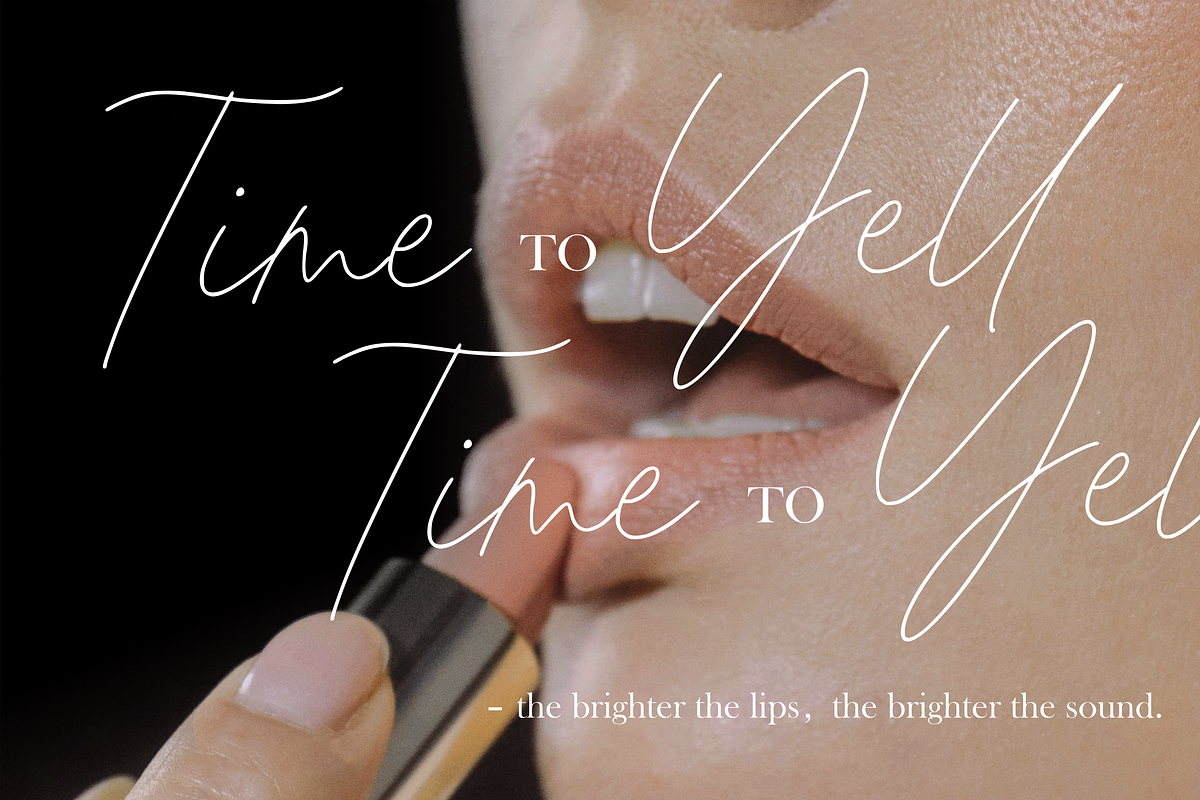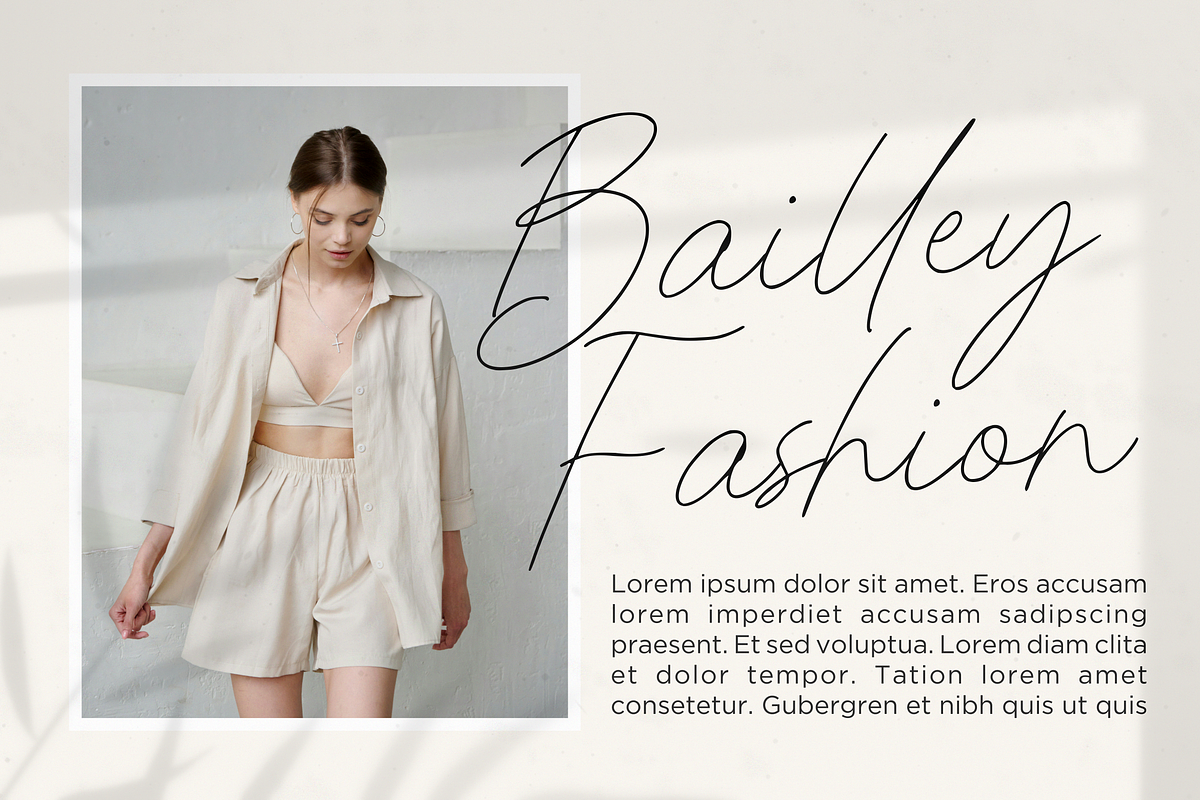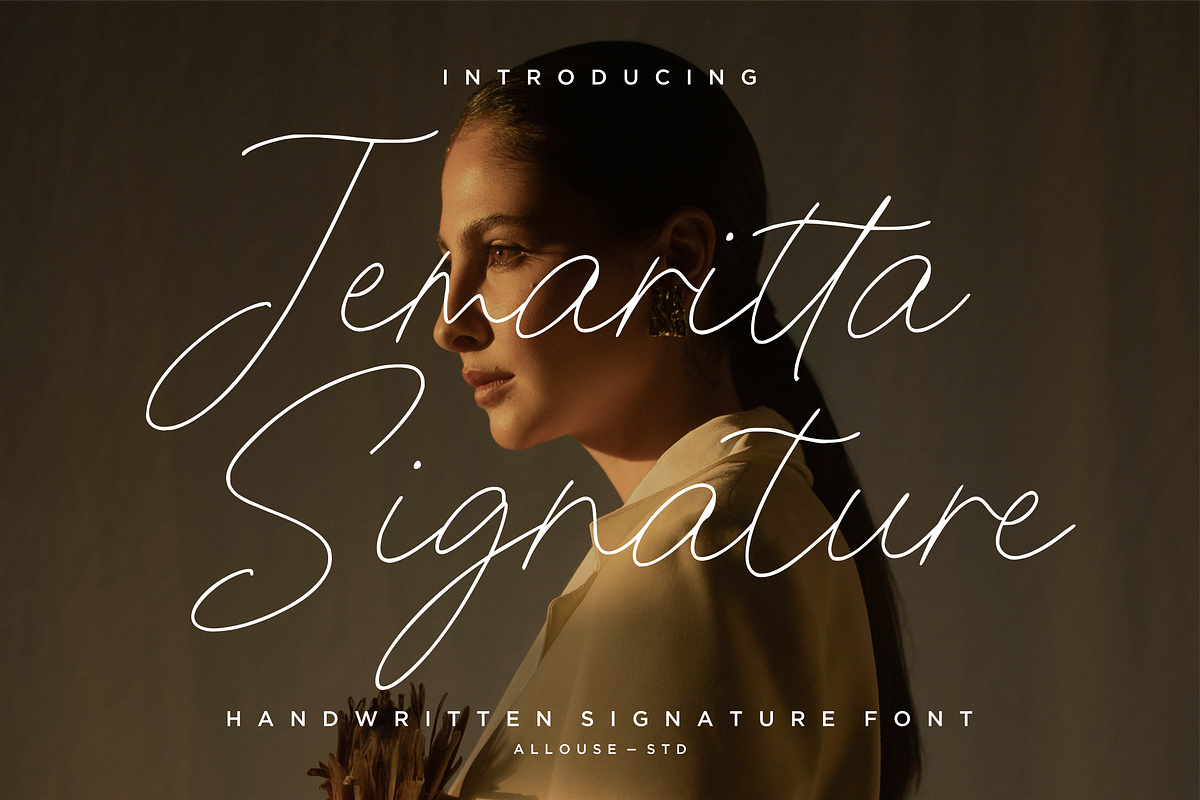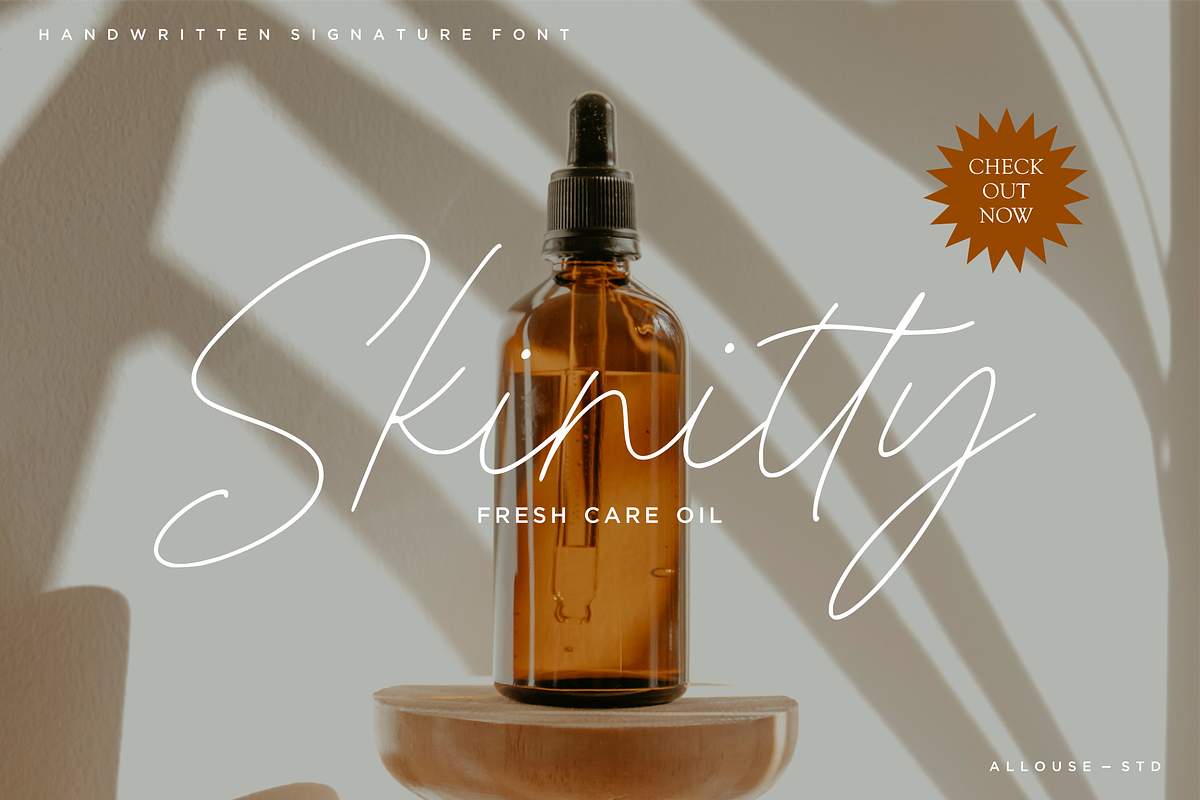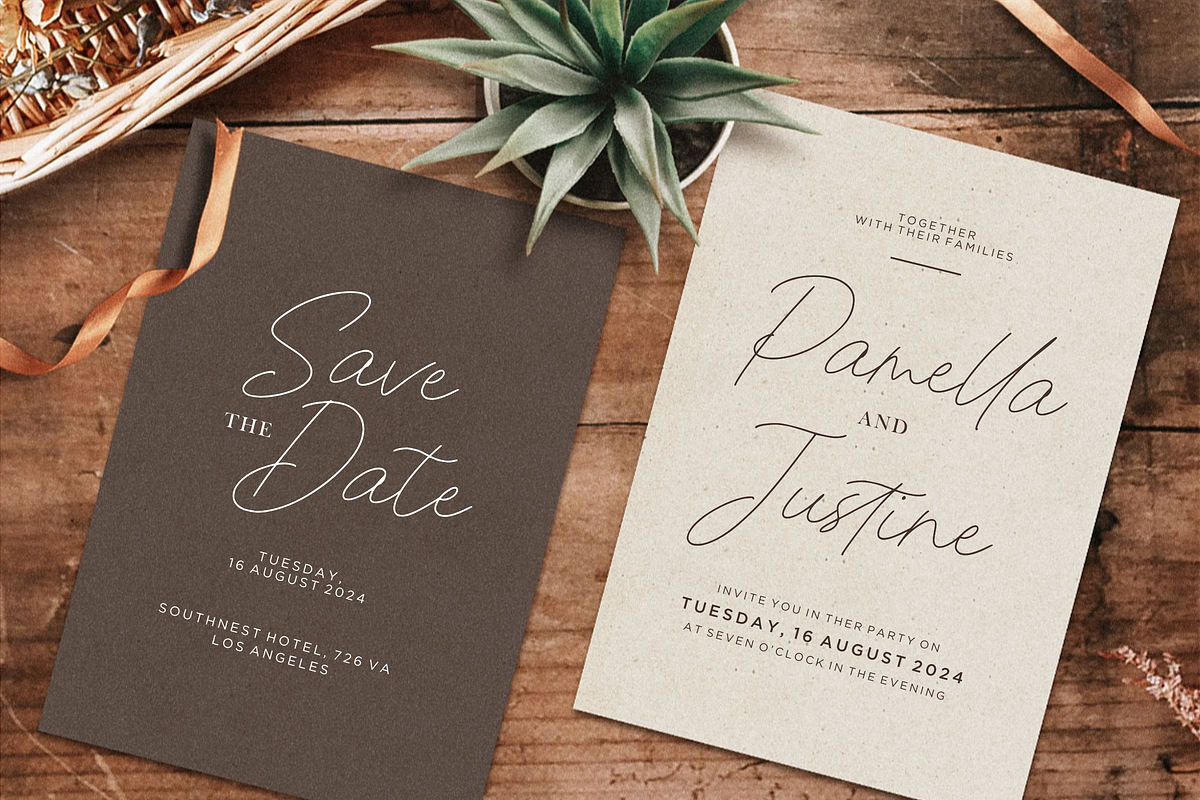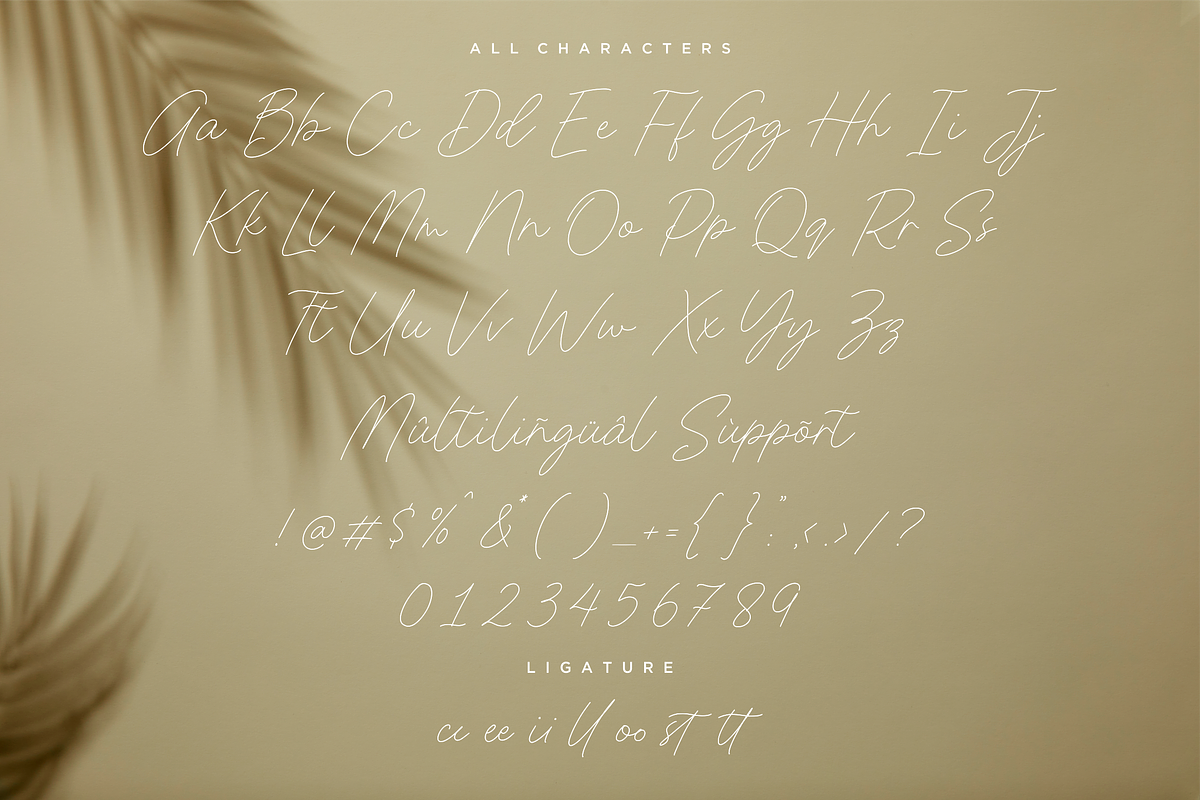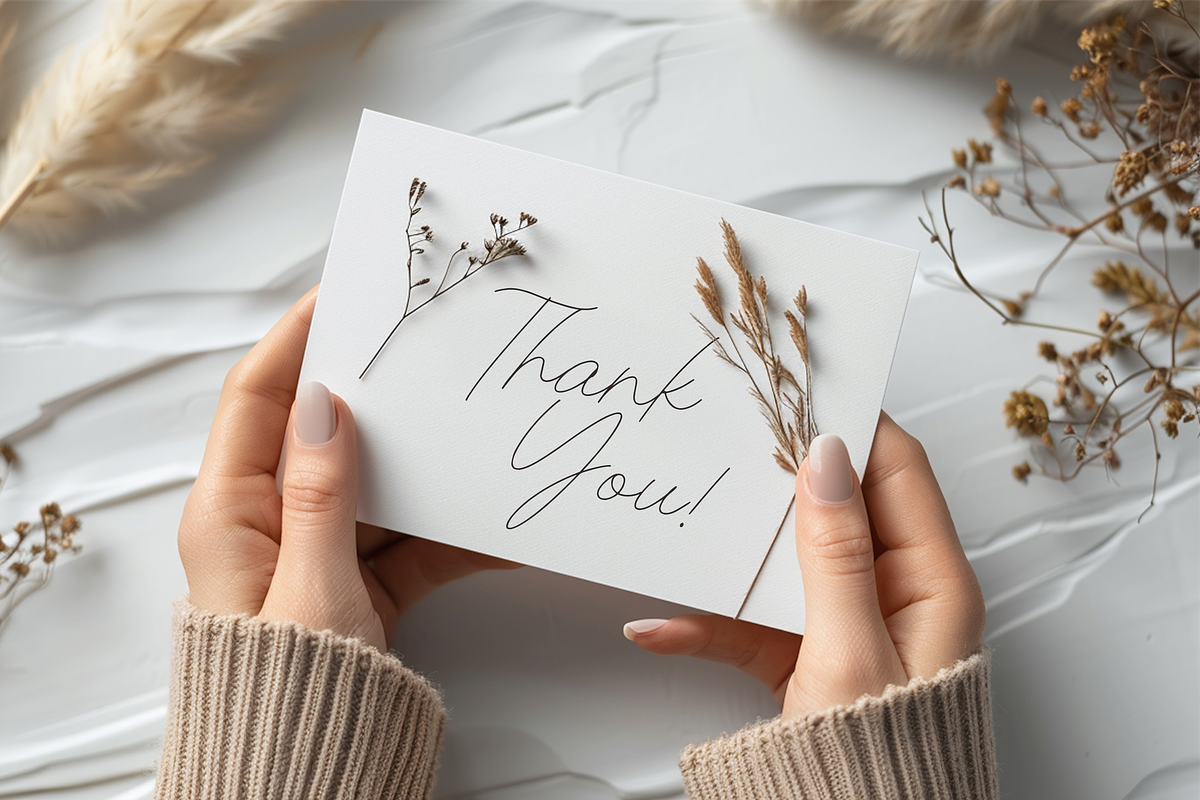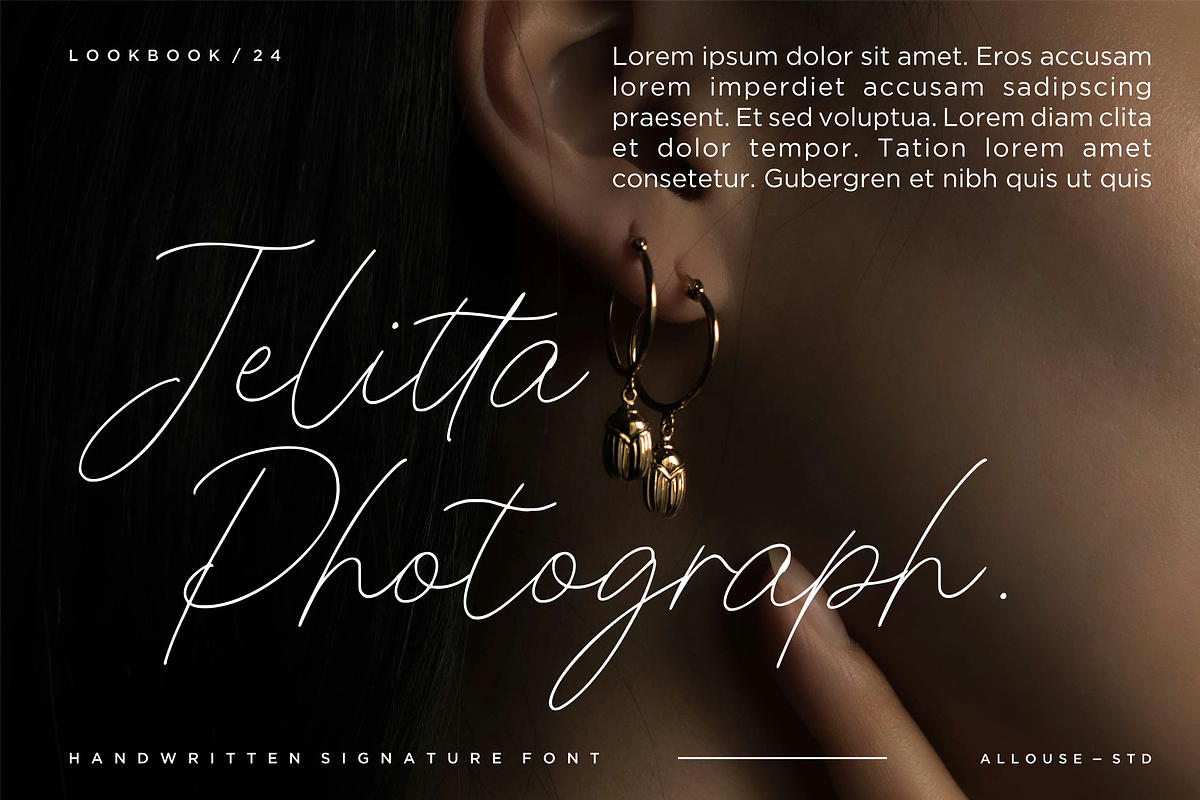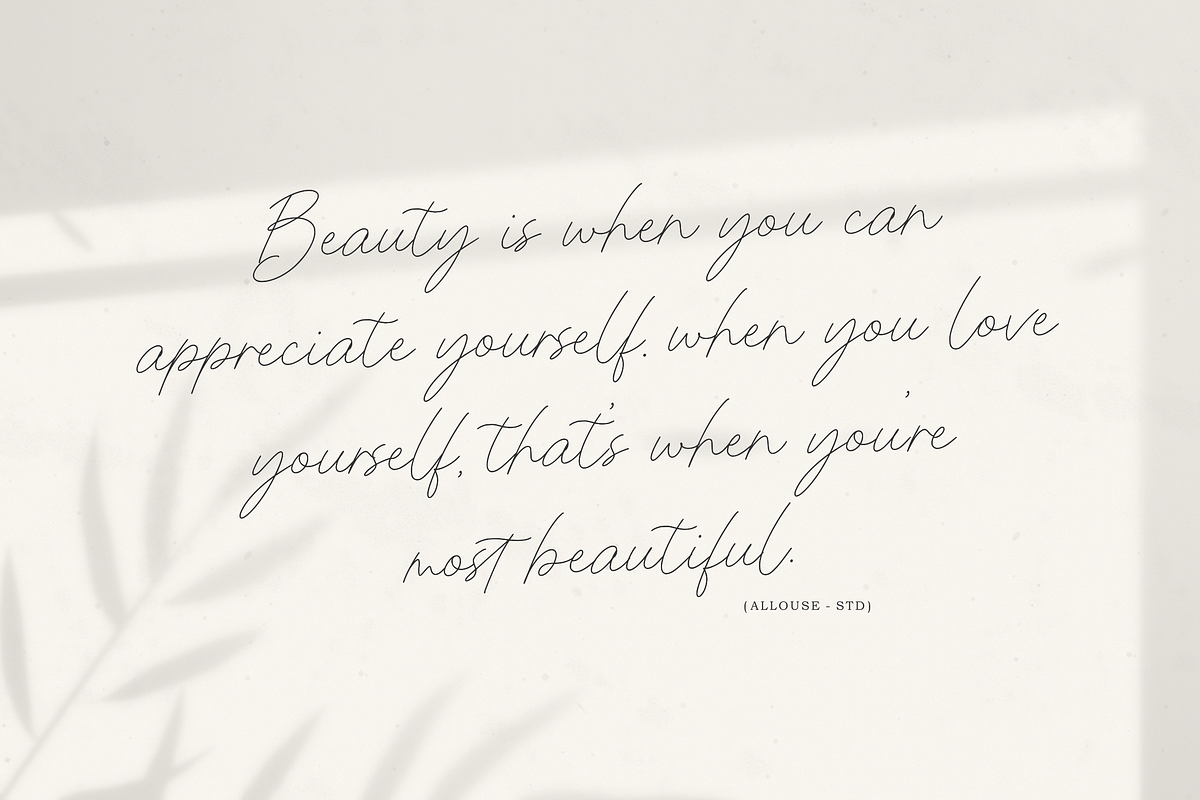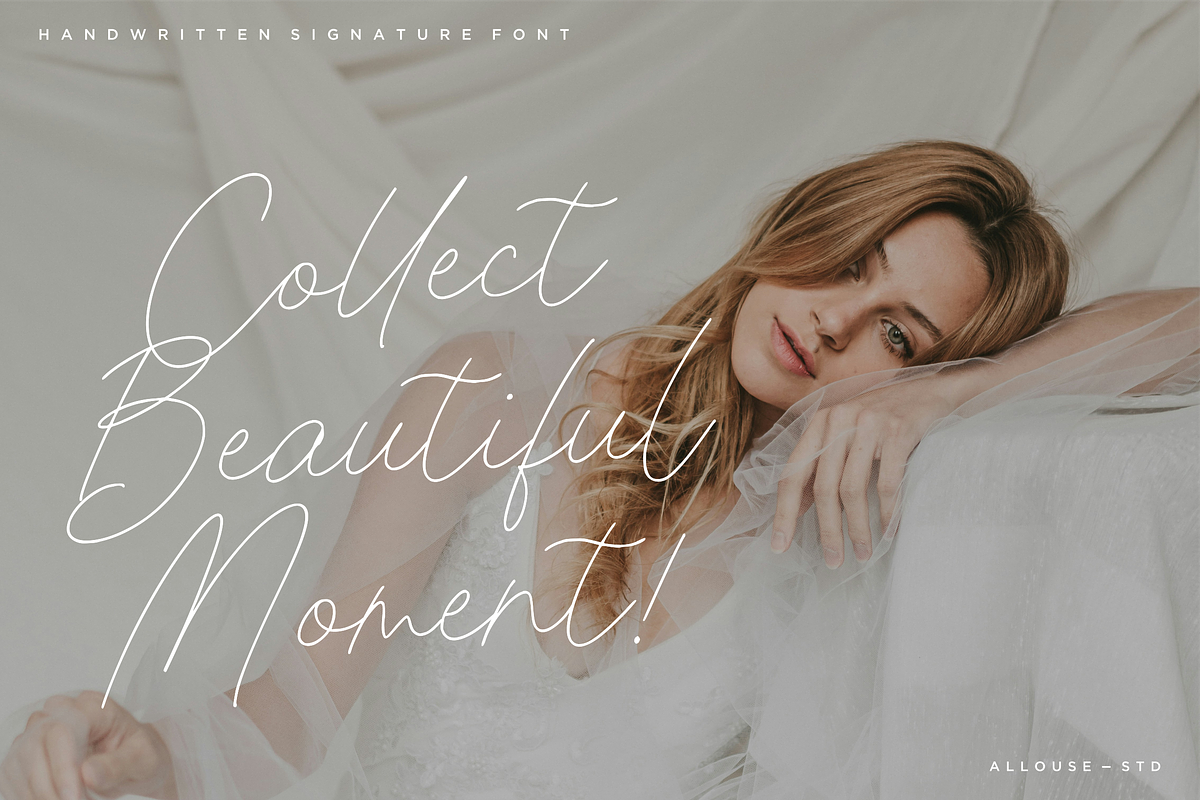
Jemaritta Signature
Proudly Present, Jemaritta Signature
Jemaritta Signature A Handwritten Signature Font
Jemaritta Signature is perfect for any titles, product packaging, branding project, megazine, social media, wedding, or just used to express words above the background.
Jemaritta Signature also come with multilingual support.